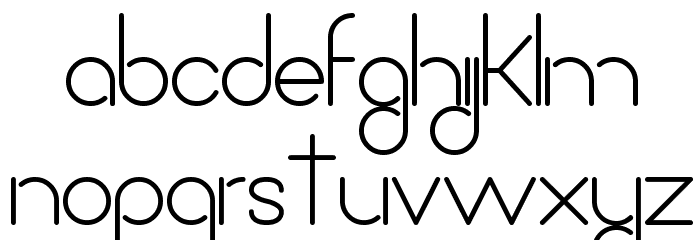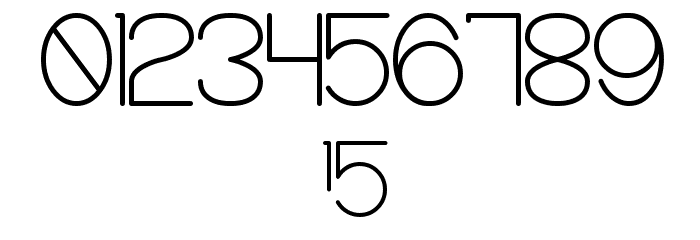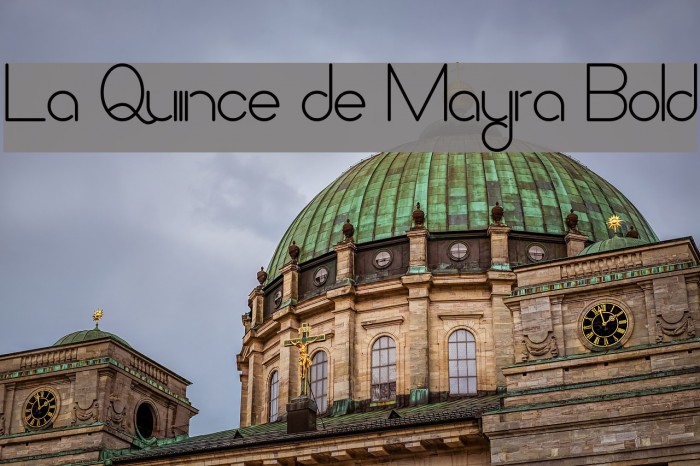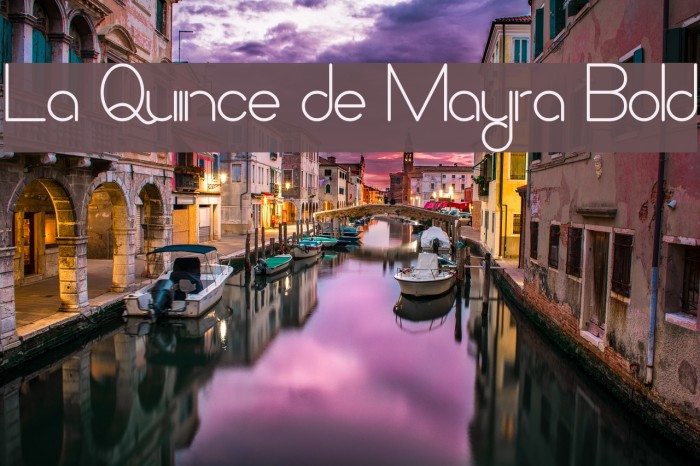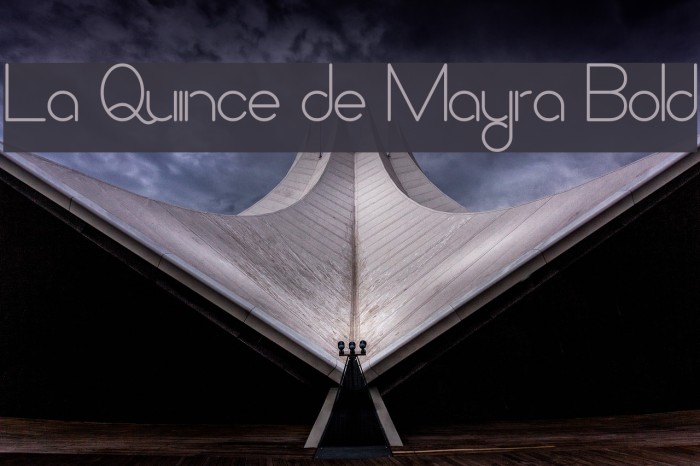
La Quince de Mayra Bold Font
This font features a modern and geometric design with clean, rounded edges and a consistent stroke width. The uppercase and lowercase letters maintain a uniform height, creating a harmonious and balanced appearance. The numerals are distinct and easy to read, complementing the overall style. The special characters are integrated seamlessly, maintaining the geometric aesthetic. This font is ideal for projects that require a contemporary and sleek look, offering versatility in both digital and print media.
A modern, geometric font with clean, rounded edges and consistent stroke width.
- Proposed Projects: Ideal for branding, logos, headlines, and modern web design projects.
- Use Case: Headlines, Logos, Branding